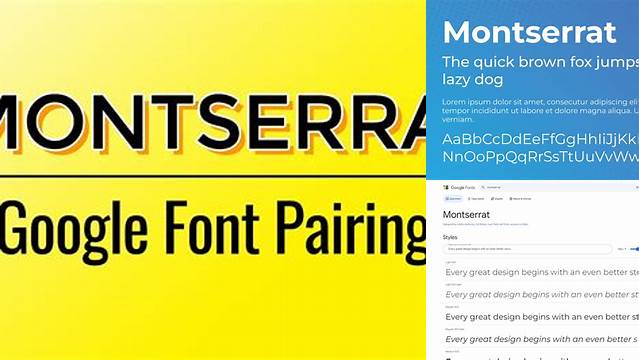
Montserrat Google Font CSS: Easy Link Guide
Understanding the Montserrat Google Fonts CSS Link
Hey guys! So, you're looking to jazz up your website with the super popular Montserrat font, and you need to know how to link it using CSS, right? Well, you've come to the right place! Getting the Google Fonts Montserrat CSS link is actually way simpler than it sounds. Think of it as giving your website a fresh new outfit – a stylish, modern one! Montserrat is a fantastic choice because it's super versatile. It's got this clean, geometric vibe that works wonders for everything from headings that need to pop to body text that needs to be easy to read. We're talking about a font that screams 'modern' and 'professional' without being stuffy. It's got a friendly feel, too, which is great for engaging your audience. So, when you're aiming for that perfect blend of aesthetic appeal and readability, Montserrat is definitely a top contender. The key to using it on your site is through the Google Fonts service, and specifically, by using its CSS link. This method is super efficient and ensures that anyone visiting your site will see the font exactly as you intended, regardless of whether they have it installed on their own computer. It's all about making your website look its best and provide a seamless user experience. This guide will walk you through every single step, making sure you can confidently add this amazing font to your design toolkit. We'll cover how to find the link, where to put it in your HTML, and how to apply it in your CSS. So, buckle up, and let's get your site looking sharp with Montserrat!
The Charm of Montserrat Font for Web Design
Alright, let's dive a little deeper into why Montserrat is such a killer font for web design, especially when you're looking at that CSS link. This font isn't just popular; it's popular for a reason, guys! Montserrat hails from the Montserrat neighborhood in Buenos Aires, Argentina, and its design is inspired by the old posters and signage found there. This gives it a distinct geometric and urban feel. What's so cool about this is that it translates beautifully to the digital world. It's got this really balanced structure – not too wide, not too narrow, with clear, legible letterforms. This means it's fantastic for headlines that need to grab attention, but it's also surprisingly readable in smaller sizes for body text. Seriously, you can have your main headings in a bold weight of Montserrat, and they'll look super impactful, then switch to a lighter weight for your paragraphs, and your readers won't have to squint. It's this adaptability that makes it a designer's dream. Plus, Google Fonts offers a huge range of weights for Montserrat, from Thin (100) all the way up to Black (900), plus italics for most of them. This typographic control is gold! It allows you to create visual hierarchy and add subtle nuances to your design without needing a whole bunch of different fonts. You can stick with just Montserrat and still achieve a sophisticated, multi-layered look. So, when you're deciding on a font, and you're thinking about that Google Fonts Montserrat CSS link, remember you're not just picking a typeface; you're choosing a tool that offers incredible flexibility and a modern, engaging aesthetic that's proven to work across a vast array of websites and applications. It’s the kind of font that just makes your content look good.
Finding Your Google Fonts Montserrat CSS Link
Selecting Montserrat Font Styles for Your Project
Before you grab that Google Fonts Montserrat CSS link, it's super important to think about which styles or weights of Montserrat you actually need for your project. Trying to load every single weight and italic variation can slow down your website, and honestly, most projects don't need all of them. So, let's talk strategy, guys! When you're on the Montserrat page on Google Fonts, you'll see a long list of styles available, like Thin 100, Light 300, Regular 400, Medium 500, SemiBold 600, Bold 700, ExtraBold 800, and Black 900, plus their italic counterparts. For a typical website, you might only need a few. A common setup is to use 'Regular 400' for your body text, maybe 'SemiBold 600' or 'Bold 700' for your headings, and perhaps 'Italic 400' if you use italics for emphasis. Think about the hierarchy you want to create. Do you need super heavy, attention-grabbing headlines? Then maybe 'ExtraBold 800' or 'Black 900' is your jam. Or perhaps a more subtle difference between body and heading text is all you need. Clicking the 'Select this style' button next to each one you decide on is key. As you click, the font preview and the embed code panel will update. This is your cue to check the URL in the CSS link. Notice how it changes as you add or remove styles? That's because Google Fonts dynamically generates the URL to only include the font files it needs to serve. So, by being selective now, you’re not only making your design choices intentional but also optimizing your site's performance right from the get-go. It's all about using what you need and leaving the rest. This thoughtful selection process ensures your Google Fonts Montserrat CSS link is as efficient as possible.
Applying Montserrat in Your CSS
So you've got the Google Fonts Montserrat CSS link sorted and embedded in your HTML. Awesome! Now for the fun part: actually using Montserrat on your website. This is where your CSS file comes into play. You need to tell your HTML elements which font to use. The property you'll be using is, unsurprisingly, font-family. You'll be writing CSS rules that target specific HTML elements (like body, h1, p, etc.) and assign them the 'Montserrat' font. Let's look at a typical example. Suppose you want all your body text to be in Montserrat Regular, and your main headings to be in Montserrat Bold. You'd write something like this in your style.css file:
sans-serif) in yourfont-familydeclaration to ensure text remains readable if Montserrat doesn't load. - Performance: Only link the specific weights and styles you actually use to keep file sizes down and loading times fast.
Following these steps ensures your Montserrat font is implemented correctly, looks great, and contributes to a positive user experience. It's all about making your website look sharp and function smoothly, guys!